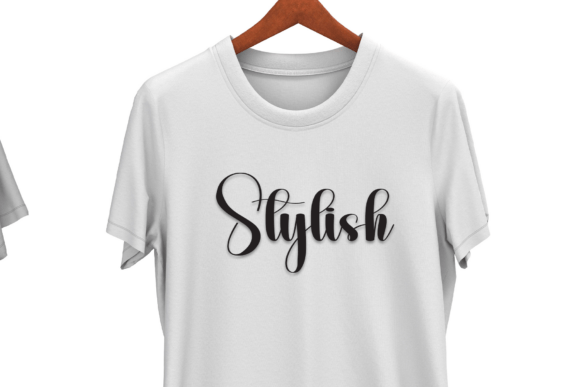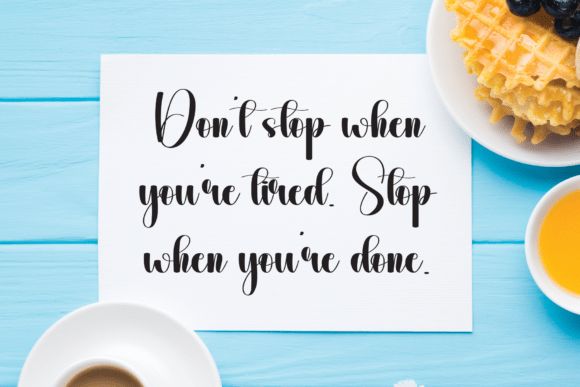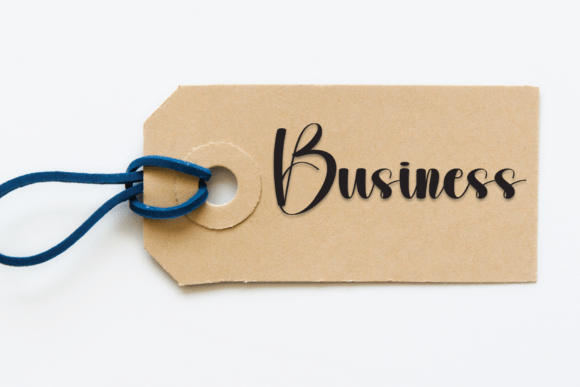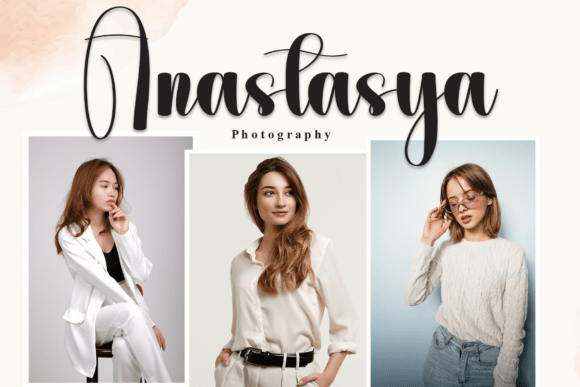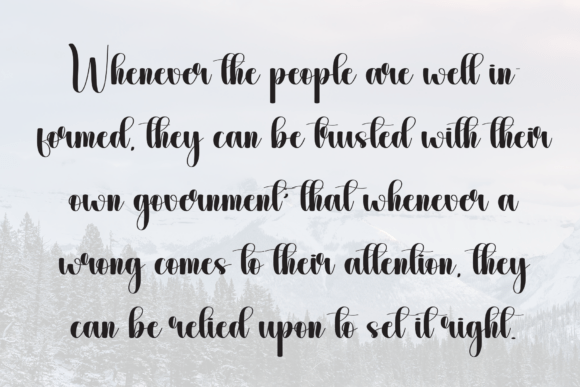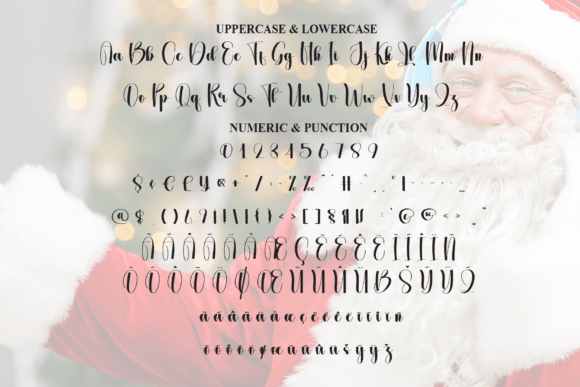
Happy Santa Font: The Perfect Addition to Your Design Collection
Are you looking for a font that can add a touch of whimsy and charm to your designs? Look no further than the Happy Santa Font, a handcrafted script font that is sure to bring a smile to your face. With its sweet and amicable essence, this font is perfect for designers and crafters who want to add a personal touch to their work.
The Charming Allure of Happy Santa Font
The Happy Santa Font is a unique and charming script font that is handcrafted with love and care. Its heartwarming character shines brightly in adorable designs, making it perfect for a variety of projects. Whether you’re creating wedding invitations, heartfelt cards, or any other design that needs a sprightly flourish, this font is sure to impress.
Perfect for Whimsical Designs
The Happy Santa Font is perfectly tailored to infuse a whimsical charm into your designs. Its beautiful simplicity makes it easy to use and versatile, allowing you to create a wide range of designs with ease. From playful and fun to elegant and sophisticated, this font can be used to create a variety of designs that are sure to delight.
Use it for Wedding Invitations and Cards
One of the best things about the Happy Santa Font is its versatility. It’s perfect for wedding invitations, heartfelt cards, and any other design that needs a personal touch. The font’s sweet and amicable essence makes it ideal for creating romantic and whimsical designs that will leave a lasting impression.
The Happy Santa Font offers a range of benefits for designers and crafters. Here are just a few:
- Unique and charming design: The Happy Santa Font is a one-of-a-kind font that will add a touch of personality to your designs.
- Versatile: The Happy Santa Font can be used for a wide range of designs, from wedding invitations to playful crafts.
- High-quality: The font is high-quality and comes with a range of characters and symbols to help you create unique designs.
The Happy Santa Font is a charming and whimsical script font that is perfect for designers and crafters who want to add a personal touch to their work. With its sweet and amicable essence, this font is sure to bring a smile to your face and a touch of magic to your designs. Whether you’re creating wedding invitations, heartfelt cards, or any other design, the Happy Santa Font is the perfect addition to your design collection.
Get Ready to Fall in Love with This Font